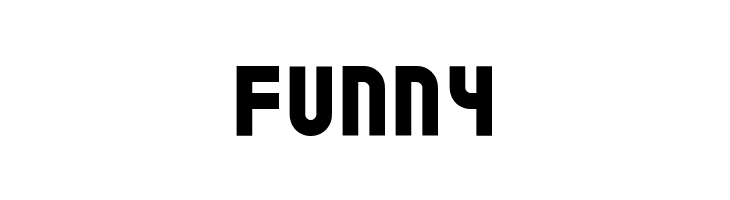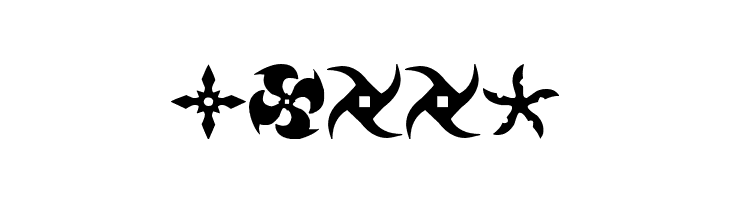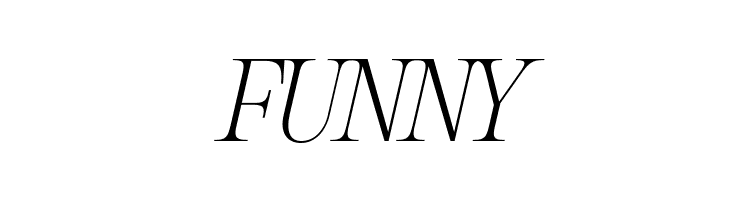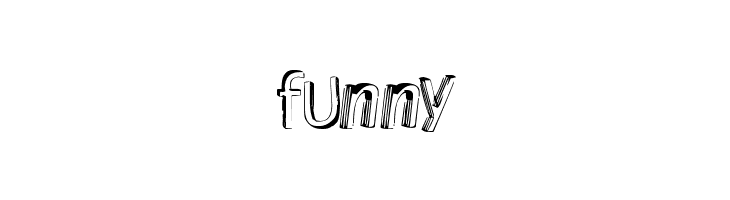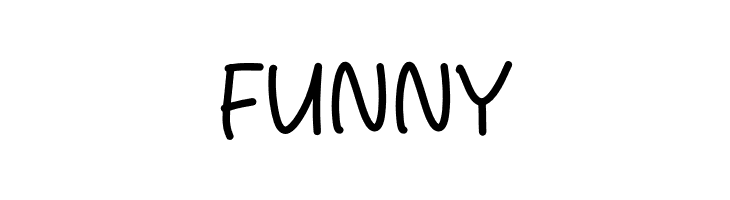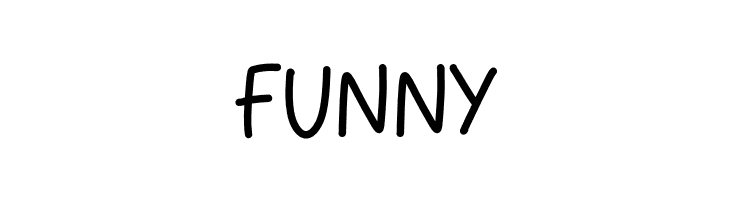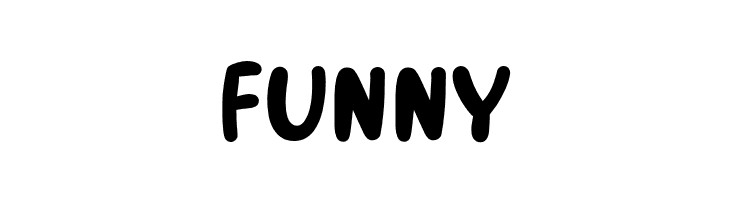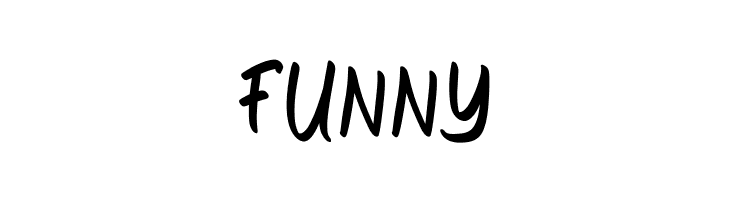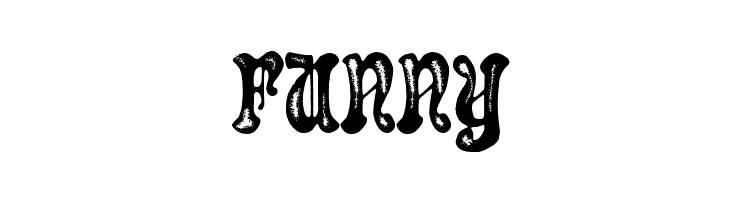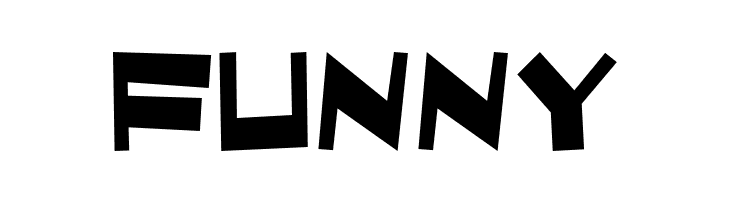
A thin, italicized font with elegant and graceful curves.
Portrait-based decorative font with illustrated human faces.
A bold, playful handwritten font with smooth, rounded letterforms.
Sheriff and Wild West icon-based decorative font.
Ornate, distressed decorative display font with vintage flair.
Silhouette-based decorative font using fashion model poses.
A playful and bold font with rounded, irregular shapes.
A dynamic and expressive handwritten font with flowing, irregular strokes.
A dynamic and expressive handwritten font with fluid strokes.
A lively, handwritten-style font with bold, expressive strokes.
A playful, casual handwritten font with smooth, rounded strokes.
An elegant script font with ornate swashes and high contrast strokes.
An elegant script font with flowing, interconnected letters and intricate swashes.
A decorative dingbat font with nautical and pirate-themed illustrations.
Decorative pictogram font with shooter-themed silhouettes.
A decorative font with shopping-themed illustrations for each character.
An expressive, brush-like font with dynamic strokes and artistic flair.
A bold, geometric font with a modern, industrial aesthetic.
A bold, geometric font with sharp edges and a retro-futuristic style.
A playful, casual handwritten font with uneven strokes and a friendly appearance.
A playful, bold font with rounded edges and a hand-drawn feel.
A bold decorative font featuring shuriken silhouettes as glyphs.
A bold, sketch-style font with a three-dimensional, artistic appearance.
A modern, monospaced font with a clean, geometric design.
A bold, monospaced font with a modern and functional design.
A bold, monospaced font with thick, uniform strokes and a geometric style.
A bold, geometric font with a strong, modern presence.
A modern, monospaced font with a clean and minimalist design.
A modern, monospaced font with geometric precision and rounded edges.
A bold, monospaced font with a modern, geometric style.
A bold, monospaced font with a modern, industrial style.
A thin, geometric font with a minimalist and modern design.
A modern, geometric font with bold, rounded characters and uniform stroke widths.